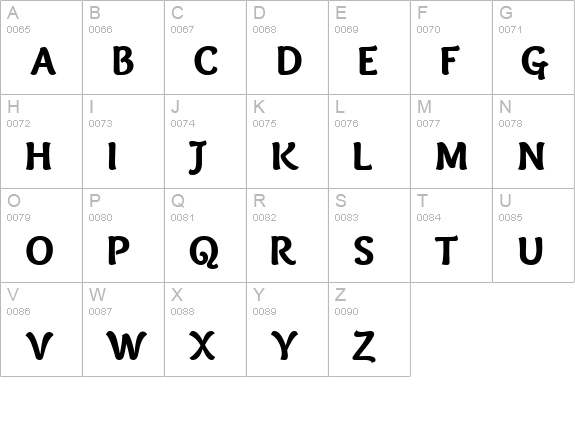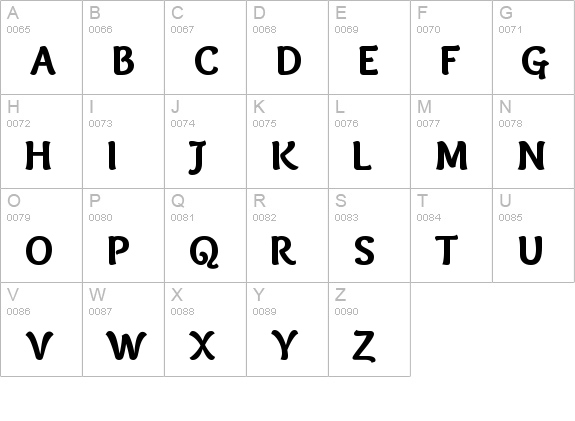
PFArmonia-Bold is a strong, high-contrast variant in the PFArmonia typeface family \xE2\x80\x94 well suited to headlines, attention-grabbing titles, and strong calls-to-action.
PFArmonia-Bold is a bold and striking font that exudes modernity and sophistication. With its strong, clean lines and sleek design, this typeface is perfect for making a bold statement in any project. Whether you are designing a logo, creating marketing materials, or crafting a stylish website, PFArmonia-Bold will elevate your work to the next level. The best part? PFArmonia-Bold is available for free download at FontsMarket.com. This means you can easily access this high-quality font without any cost, making it an invaluable resource for designers, artists, and creatives of all kinds. Don't miss out on the opportunity to enhance your projects with the elegance and versatility of PFArmonia-Bold - download it for free today!